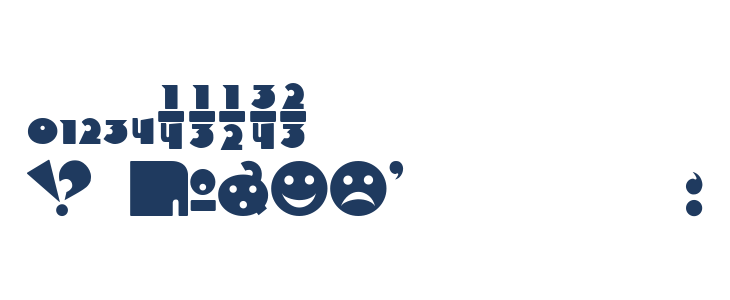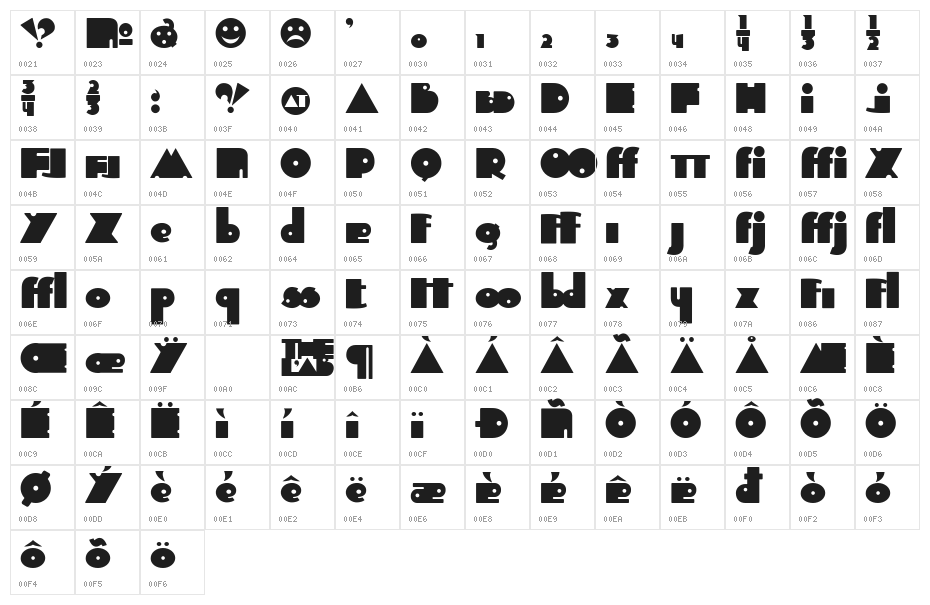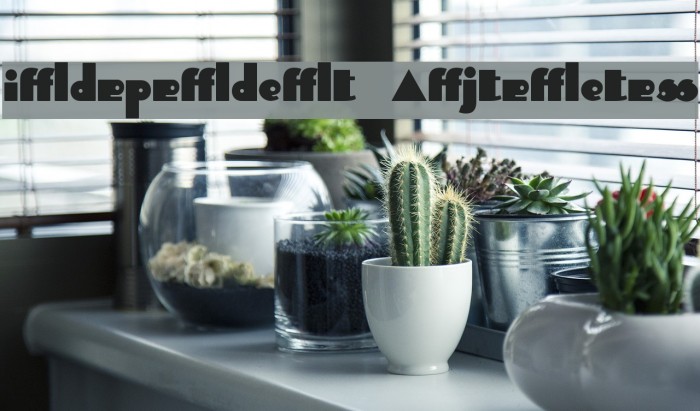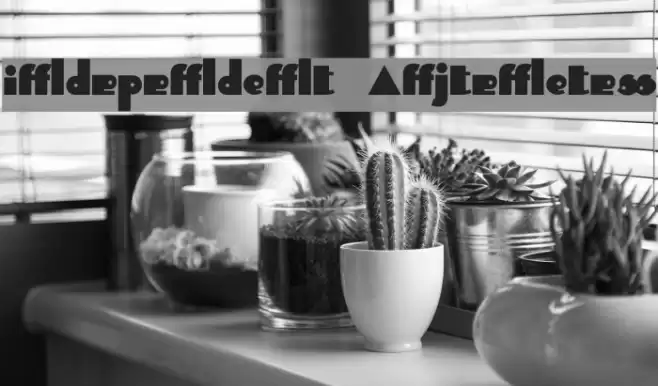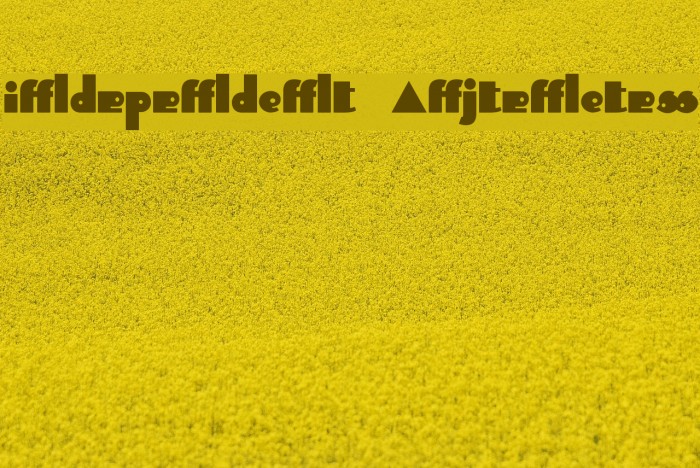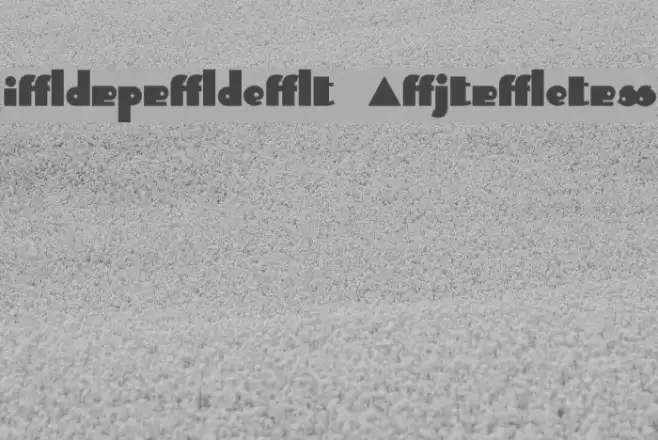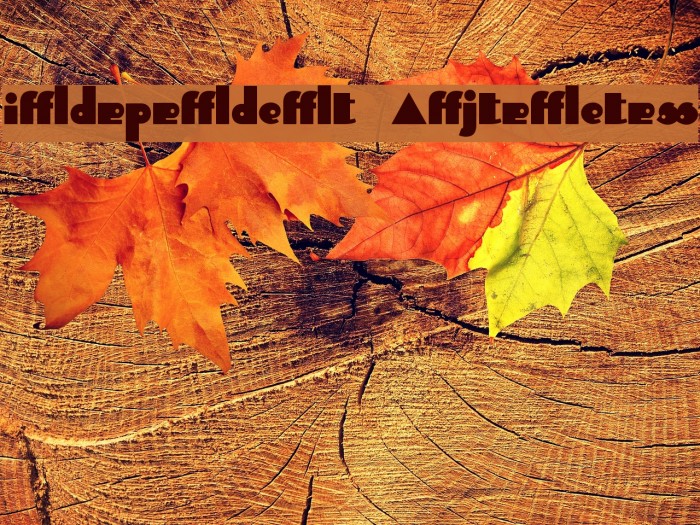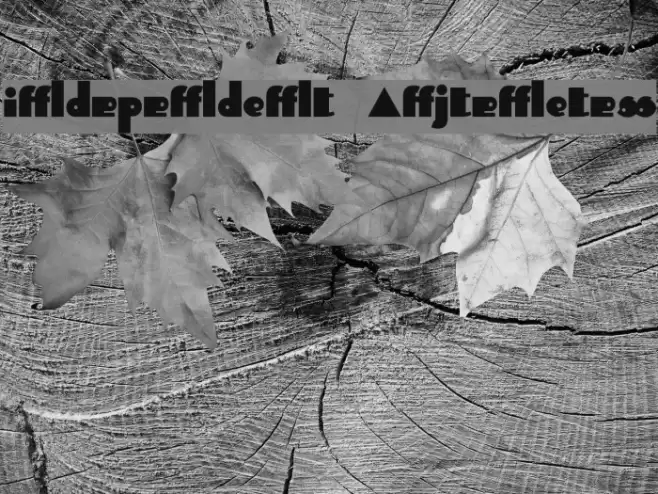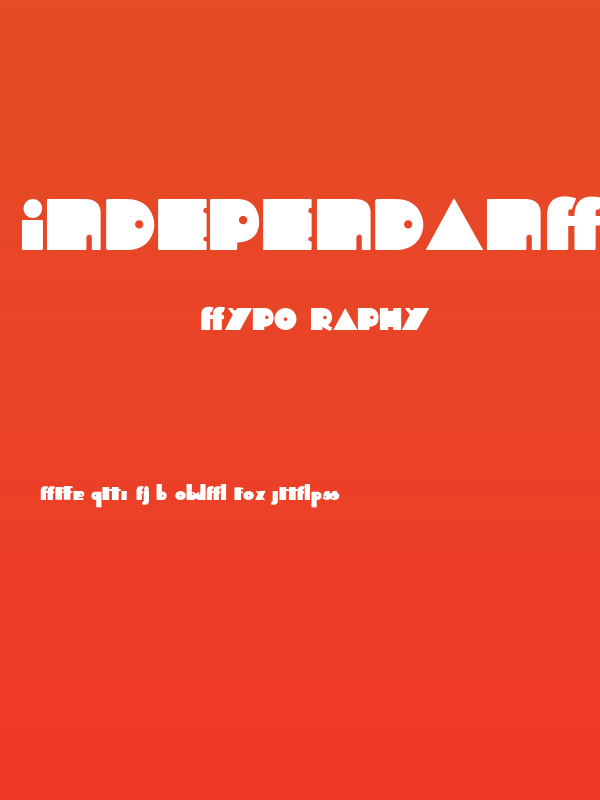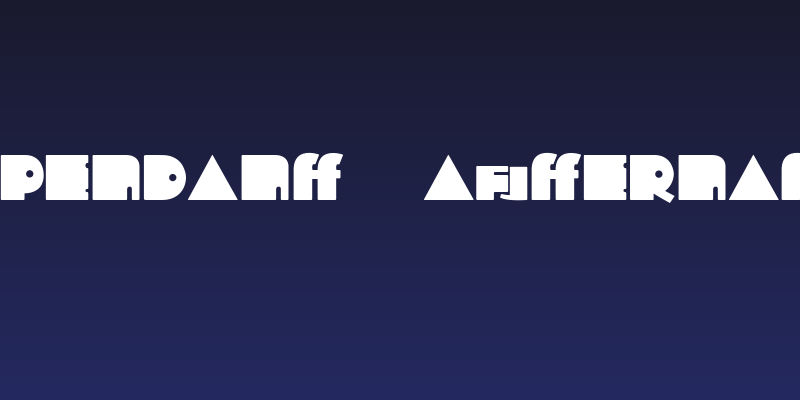
Independant - Alternates Font
Independant - Alternates Description
This font features a bold and playful design with geometric shapes and high contrast. The uppercase letters are characterized by sharp angles and unique forms, while the lowercase letters maintain a consistent style with rounded elements. The numbers are bold and distinct, matching the overall aesthetic. Special characters are creatively designed, adding to the font's whimsical nature. The font's style is eye-catching and suitable for creative projects that require a strong visual impact.
| Proposed Projects | Ideal for posters, logos, children's books, and any project needing a fun and bold typeface. |